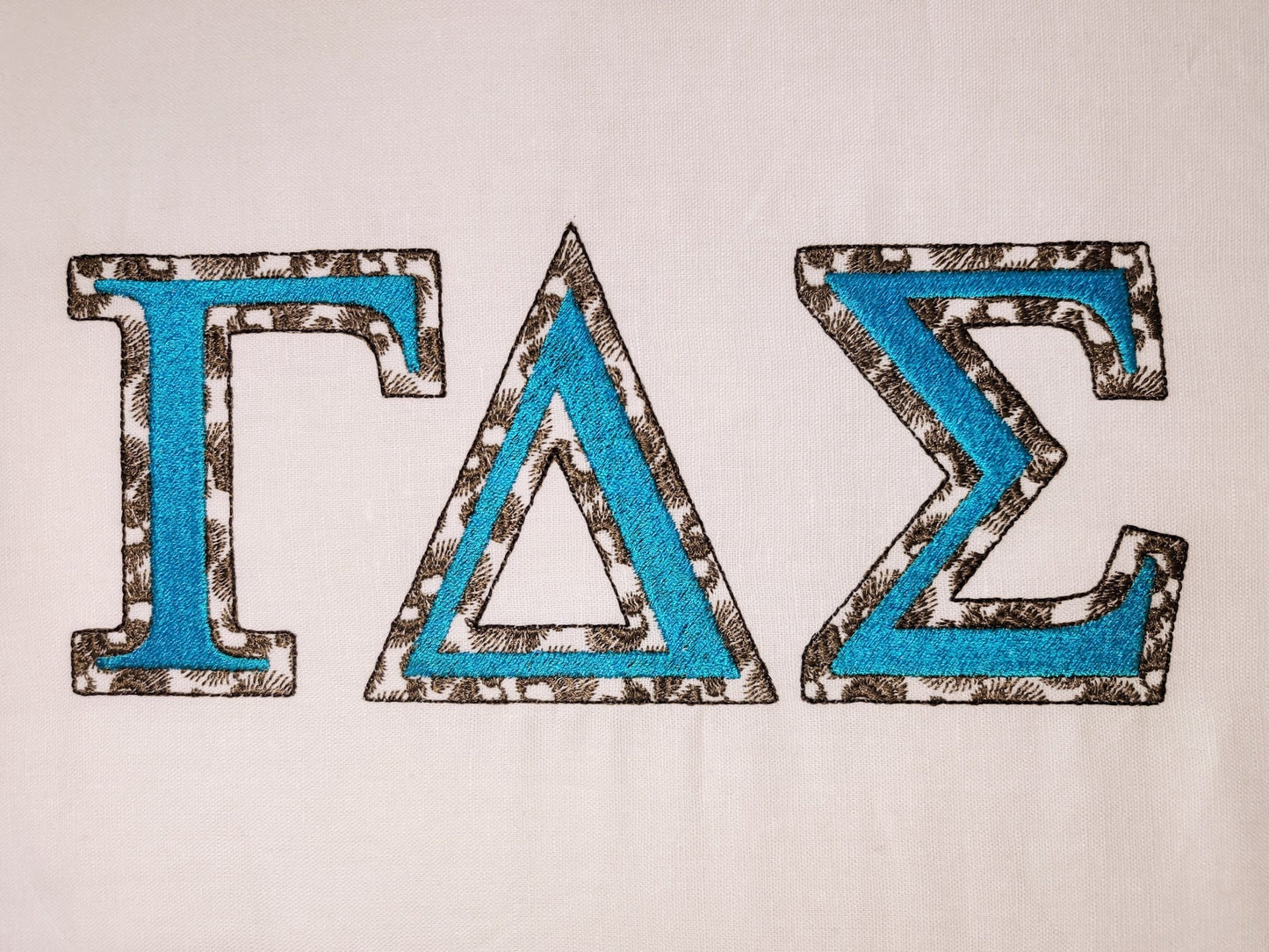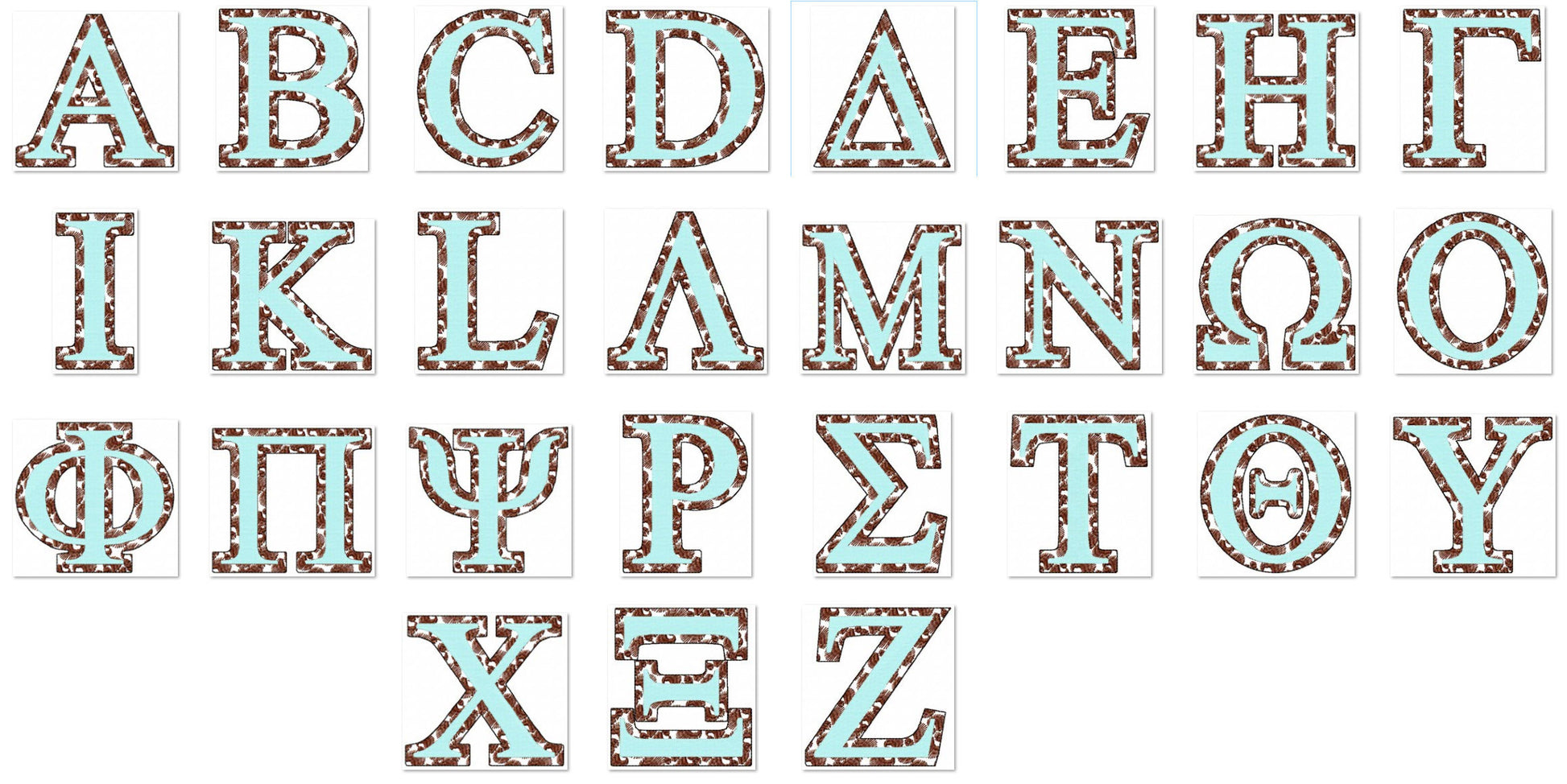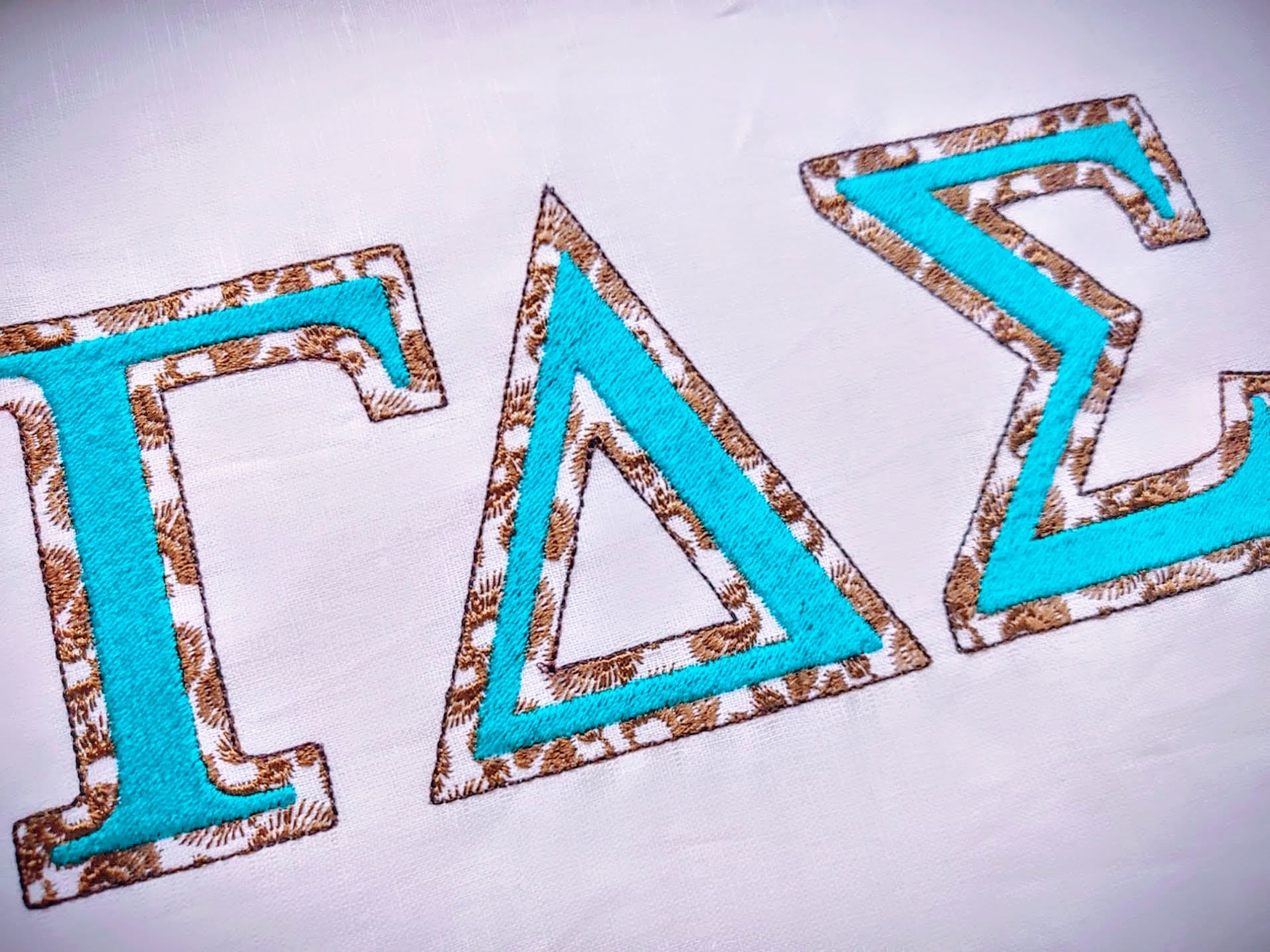
Leopard Spots Outline Sororities Greek Font
Or click to open the linkClassic sororities Greek alphabet leopard print Greek font, alphabet, ABC, letters 2 layers colors Greek font machine embroidery designs, BX
This listing is for the entire Greek font/alphabet Letters are fill stitched, the leopard is part fo embroidery.